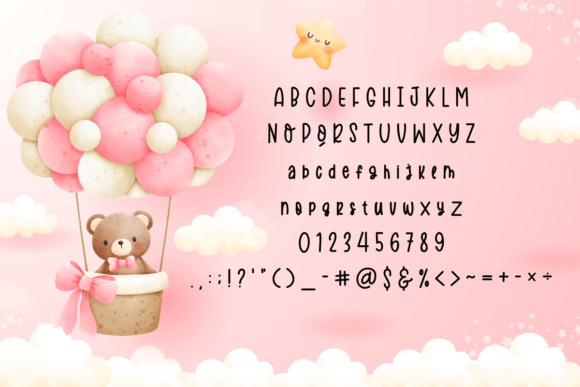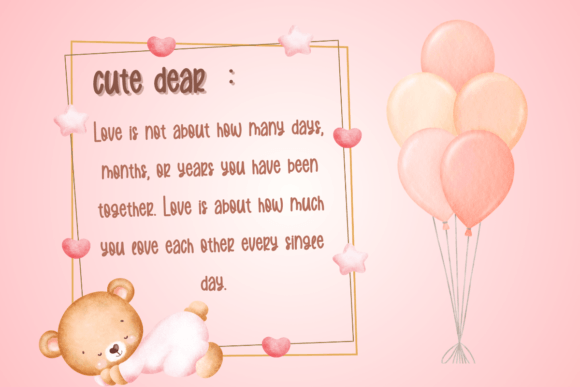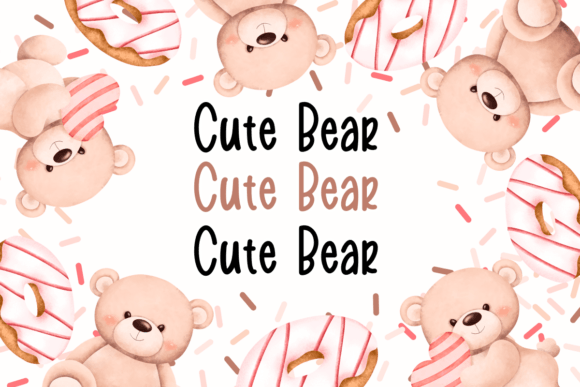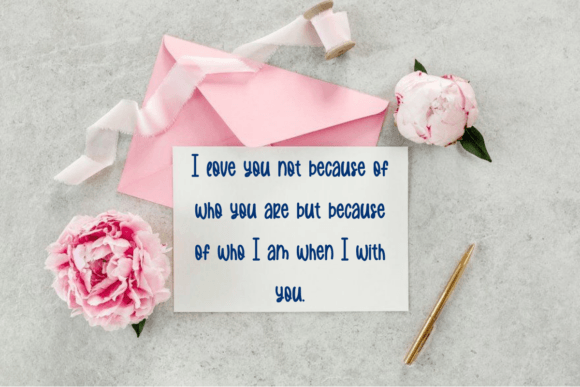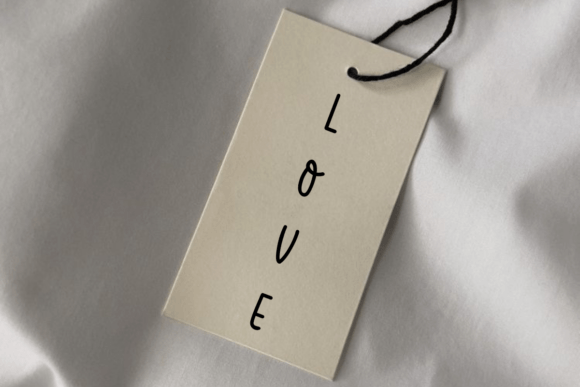
Cute Bear Font: The Perfect Handwritten Font for Creative Projects
Are you a designer, crafter, or DIY enthusiast looking for a unique and adorable font to add a personal touch to your projects? Look no further than Cute Bear Font! This charming handwritten font is perfect for taking notes, writing a diary, or creating greeting cards, and its versatility makes it suitable for a wide range of designs, from banner content to social media posts.
What is Cute Bear Font?
Cute Bear Font is a beautiful, handwritten font that exudes warmth and friendliness. Its playful and whimsical design makes it perfect for projects that require a personal and approachable feel. The font’s unique characteristics, such as its rounded edges and varying line widths, give it a distinctive and endearing quality that is sure to capture the hearts of your audience.
Uses for Cute Bear Font
One of the best things about Cute Bear Font is its versatility. While it’s perfect for:
• Taking notes and writing a diary: Add a touch of personality to your journaling and note-taking with this delightful font.
• Creating greeting cards: Make your cards stand out with a font that’s both playful and heartfelt.
• Making banners and signs: Use Cute Bear Font to create eye-catching banners and signs that are sure to grab attention.
It’s also great for:
• Mugs and water bottles: Add a personal touch to your drinkware with this adorable font.
• T-shirts and hoodies: Create unique and stylish apparel with Cute Bear Font.
• Stationery and paper crafts: Use this font to add a touch of whimsy to your stationery, cards, and paper crafts.
• Social media posts: Make your social media posts stand out with a font that’s both fun and engaging.
Why Choose Cute Bear Font?
So, why should you choose Cute Bear Font for your projects? Here are just a few reasons:
• Unique and eye-catching: Cute Bear Font is a one-of-a-kind font that’s sure to grab attention and make your projects stand out.
• Versatile: This font can be used for a wide range of projects, from personal to commercial.
• Easy to read: Despite its playful design, Cute Bear Font is easy to read and understand, making it perfect for body text and captions.
• Customizable: You can use Cute Bear Font in a variety of contexts, from digital to print, and adjust its size and style to suit your needs.
Tips for Using Cute Bear Font
To get the most out of Cute Bear Font, here are a few tips:
• Pair it with other fonts: Combine Cute Bear Font with other fonts to create a unique and visually appealing design.
• Experiment with colors: Try out different colors and color combinations to add depth and interest to your designs.
• Use it sparingly: While Cute Bear Font is adorable, it can be overwhelming if used too much. Use it sparingly to create a balanced design.
Cute Bear Font is a delightful handwritten font that’s perfect for designers, crafters, and DIY enthusiasts looking to add a personal touch to their projects. Its versatility, unique design, and ease of use make it an excellent choice for a wide range of applications, from notes and greeting cards to banners and social media posts. So why not give Cute Bear Font a try and see how it can bring a touch of whimsy and charm to your designs?
Whether you’re a seasoned designer or a crafting newbie, Cute Bear Font is sure to inspire your creativity and help you create projects that are both fun and functional. So go ahead, get creative, and make your projects stand out with Cute Bear Font!